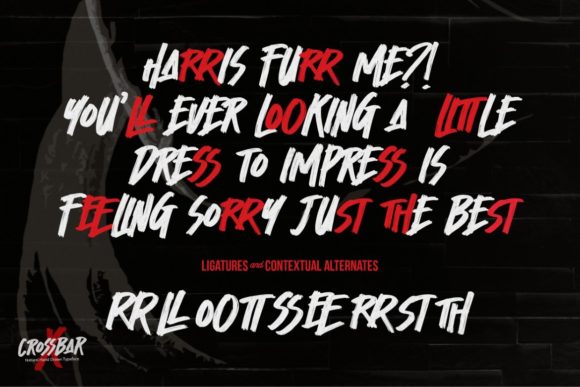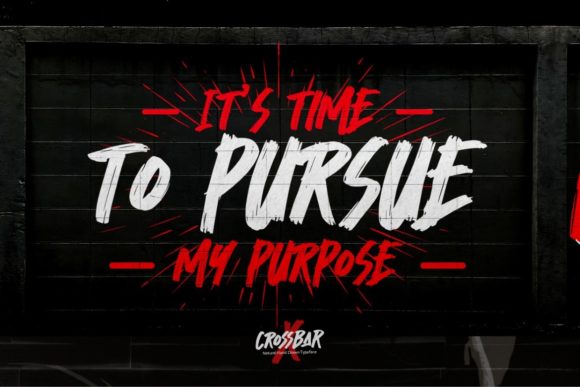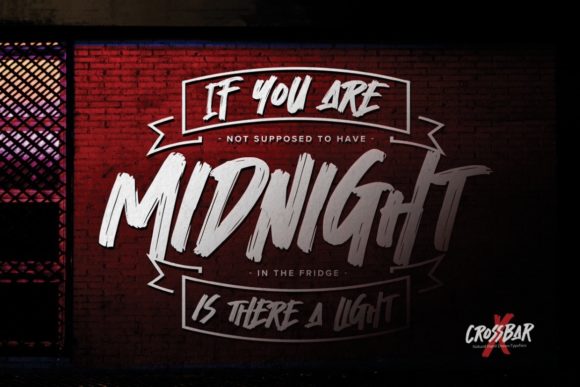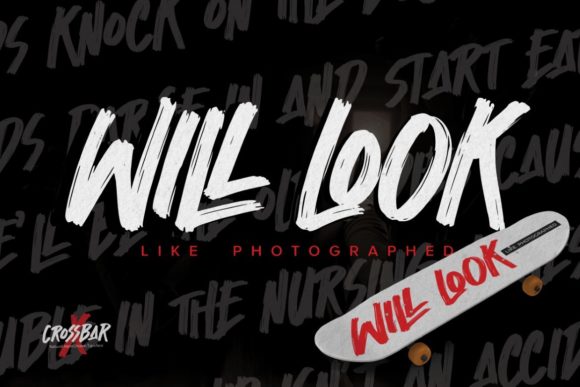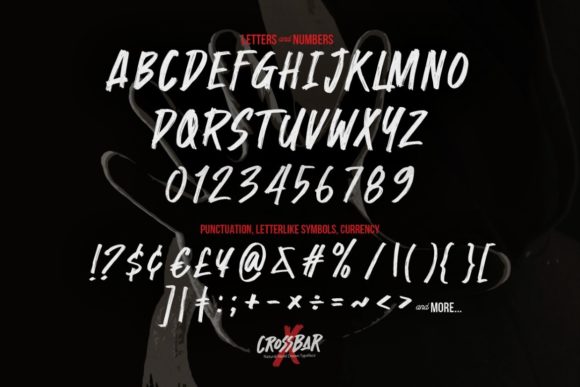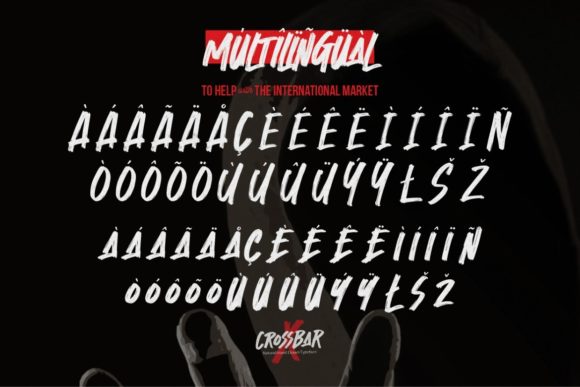
Introducing Crossbar Font: The Ultimate Choice for Street Art Enthusiasts
In the world of typography, fonts play a crucial role in conveying the tone and aesthetic of a design. For designers and crafters looking to add an edgy touch to their projects, the Crossbar Font is an excellent choice. This brushed display font boasts a gloomy, street art vibe that’s perfect for creating bold and eye-catching designs.
What is Crossbar Font?
Crossbar Font is a unique and stylish font that features a distinctive brushed texture, giving it a raw and urban feel. Its rugged appearance makes it an ideal choice for designs that require a bold and edgy look. Whether you’re working on a t-shirt, sportswear, logo, advertisement, or clothing design, Crossbar Font is sure to make a statement.
Key Features of Crossbar Font
• Brushed Texture: The font’s brushed texture gives it a worn and weathered look, adding a touch of grit and urban charm to your designs.
• Gloomy Street Art Vibe: Crossbar Font embodies the spirit of street art, making it perfect for designs that require a bold and edgy aesthetic.
• Highly Versatile: This font can be used for a wide range of design projects, from t-shirts and sportswear to logos, advertisements, and clothing.
• Easy to Read: Despite its bold and edgy appearance, Crossbar Font is surprisingly easy to read, making it a great choice for designs that require both style and substance.
Use Cases for Crossbar Font
Crossbar Font is an incredibly versatile font that can be used for a wide range of design projects. Here are some use cases where this font truly shines:
• T-Shirts and Apparel: Add a bold and edgy touch to your t-shirt and apparel designs with Crossbar Font.
• Sportswear: Give your sportswear designs a street art-inspired look with this font.
• Logos and Branding: Use Crossbar Font to create bold and memorable logos that make a statement.
• Advertisements: Add a touch of urban grit to your advertisements with this font.
• Clothing and Fashion: Use Crossbar Font to create eye-catching designs for clothing and fashion brands.
Why Choose Crossbar Font?
With so many fonts available, why choose Crossbar Font? Here are a few reasons why designers and crafters love this font:
• Unique Aesthetic: Crossbar Font offers a unique and distinctive aesthetic that’s hard to find in other fonts.
• High-Quality Design: This font is designed with high-quality craftsmanship, ensuring that it looks great in any design.
In conclusion, Crossbar Font is an excellent choice for designers and crafters looking to add a bold and edgy touch to their projects. With its brushed texture, gloomy street art vibe, and high versatility, this font is perfect for a wide range of design projects. Whether you’re working on a t-shirt, sportswear, logo, advertisement, or clothing design, Crossbar Font is sure to make a statement. So why wait? Download Crossbar Font today and start creating bold and eye-catching designs that demand attention!